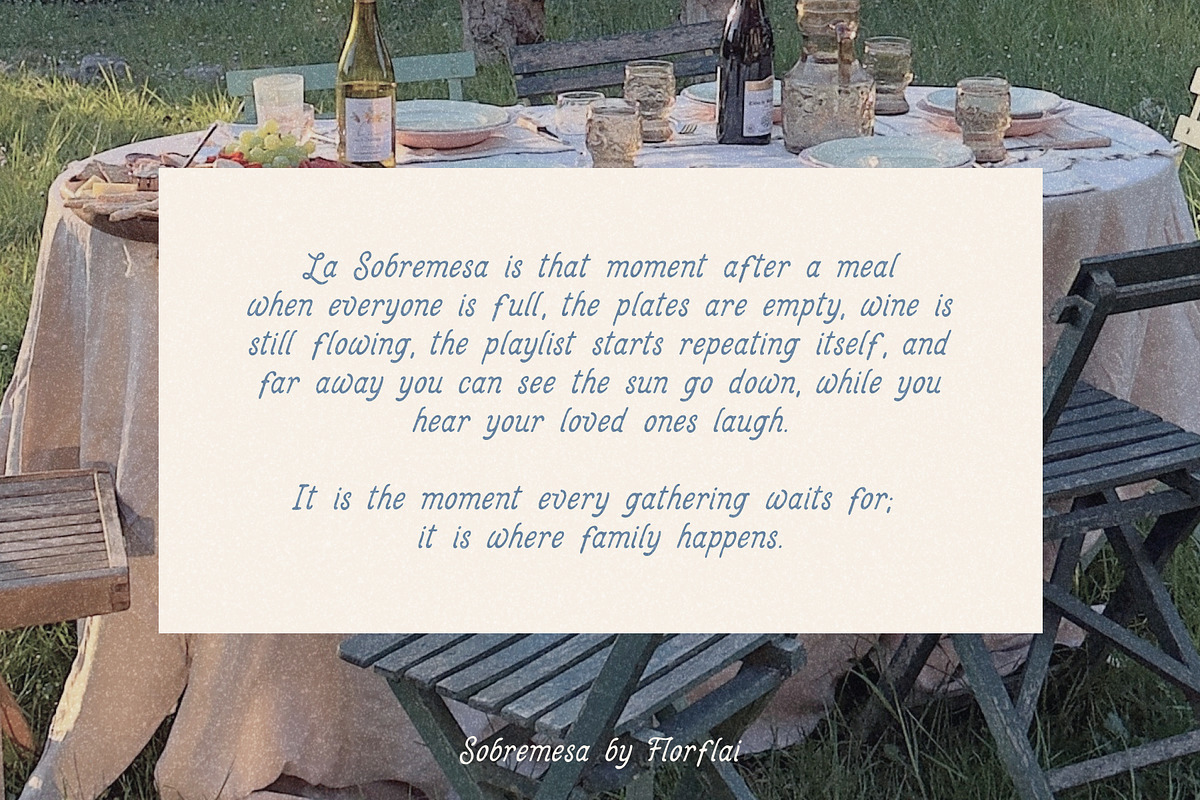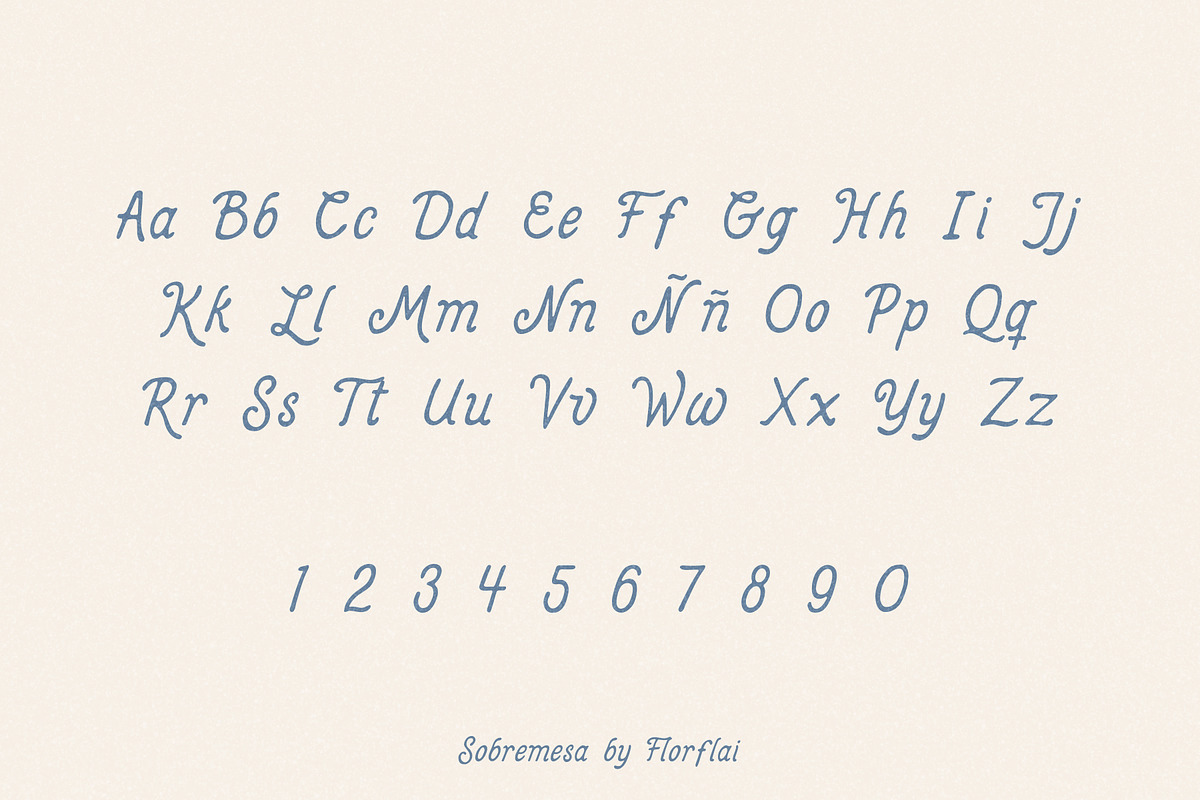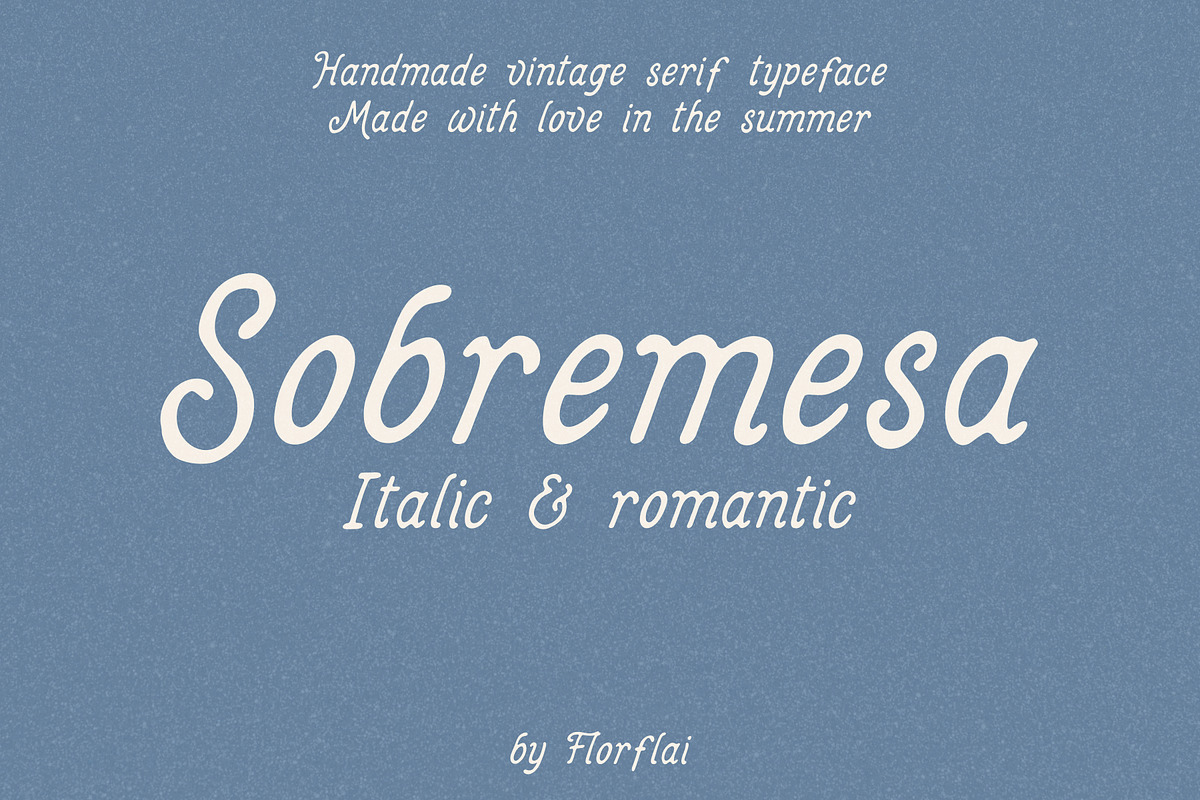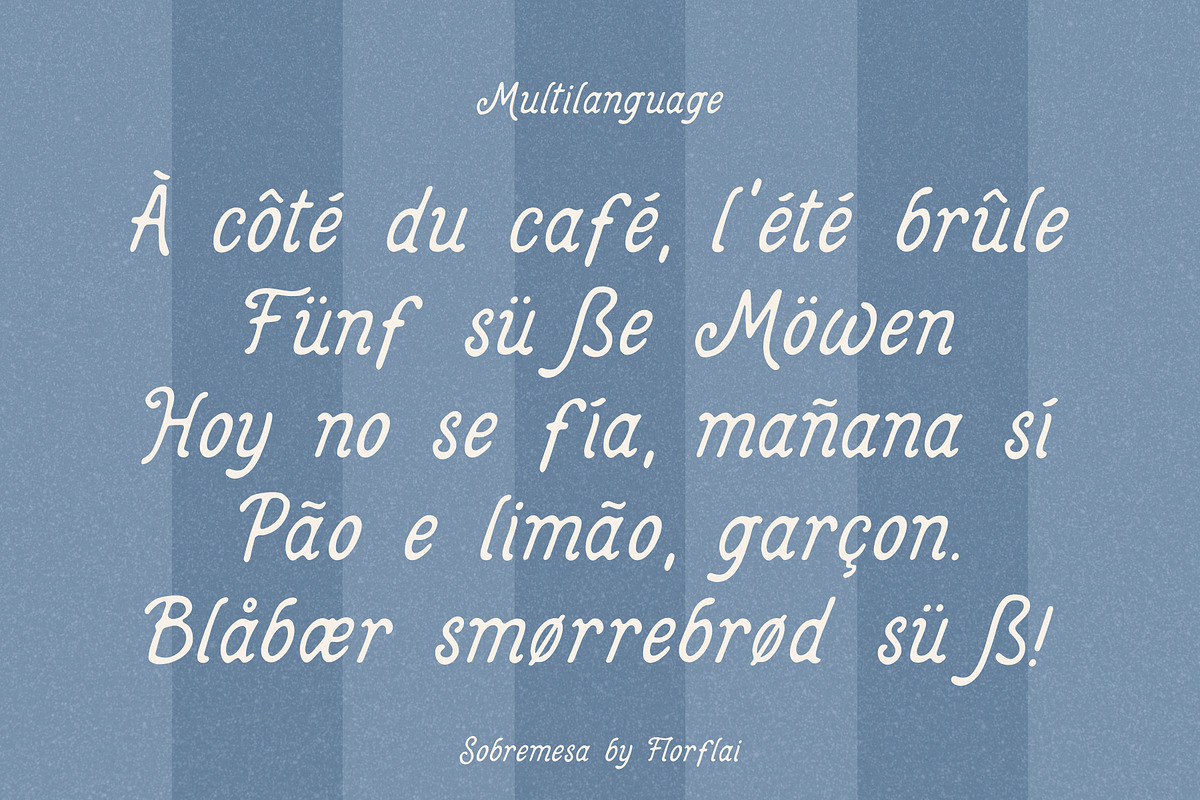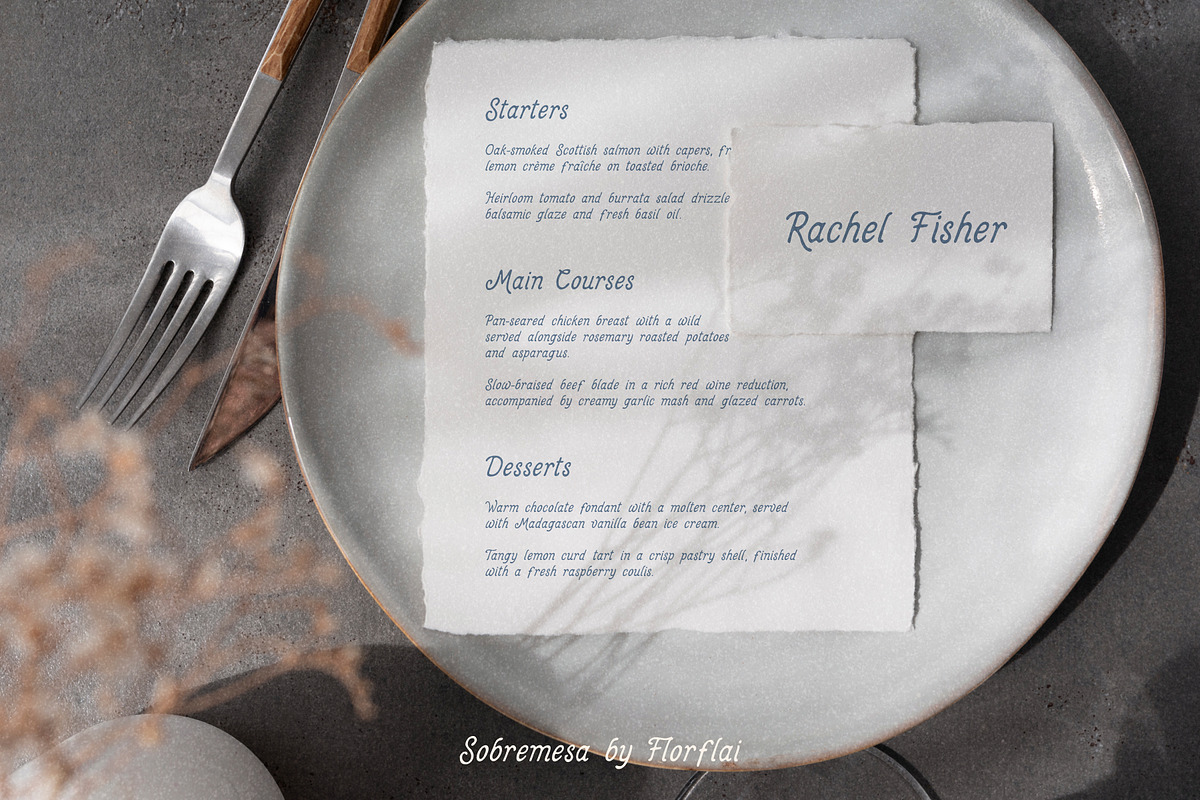
Sobremesa font
Sobremesa is a handmade vintage italic serif font inspired by the long, sun-warmed hours after a meal, when everyone is full, the plates are empty, the wine is still flowing, and no one is quite ready to leave.
Named after the hispanic tradition of staying around the table long after a meal has ended, Sobremesa carries the easy rhythm of hand-painted signs, old menus and slow summer days by the sea.
Its soft spiralled serifs and gently imperfect shapes give it warmth, movement and a slightly romantic feel. It was made for designs that need a little soul, a little sun and a lot of character.
Perfect for branding, packaging, menus, wine labels, posters, editorial covers, café and restaurant projects, summer campaigns, and anything that could use a touch of vintage Mediterranean charm.